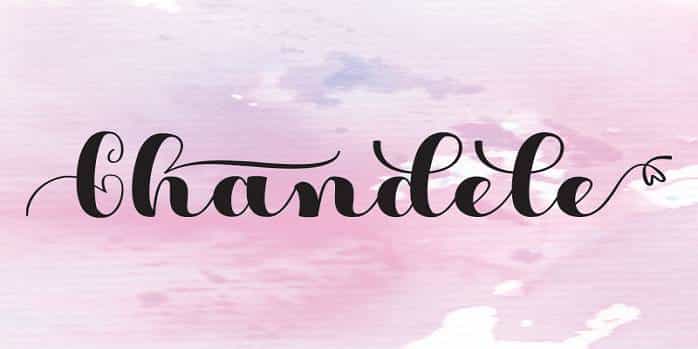
Discover Chandele Font, part of the Calligraphy collection—a versatile and unique font perfect for adding a personal touch to your projects. Download it for free and enjoy crafting designs with style, from invitations to social media posts. This font is available exclusively for personal use, giving you the freedom to create without limits. Unlock your creativity with Chandele Font today!
Chandele by Pollem Studio is a superior Calligraphy font that is offered for free download and personal use. The free edition offers the complete set of uppercase and lowercase letters, and also a few special symbols.